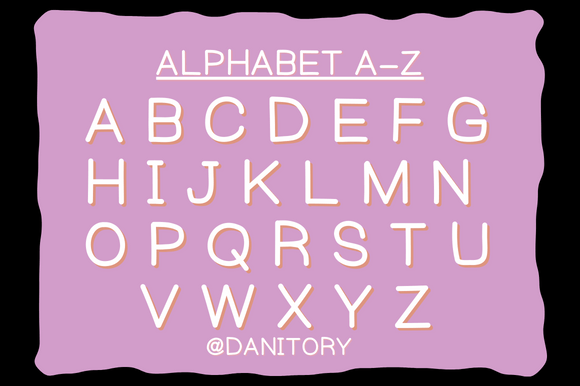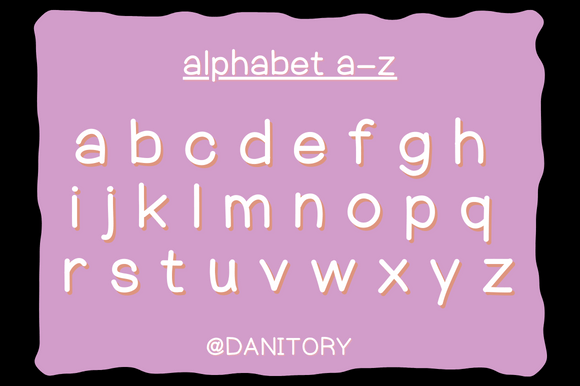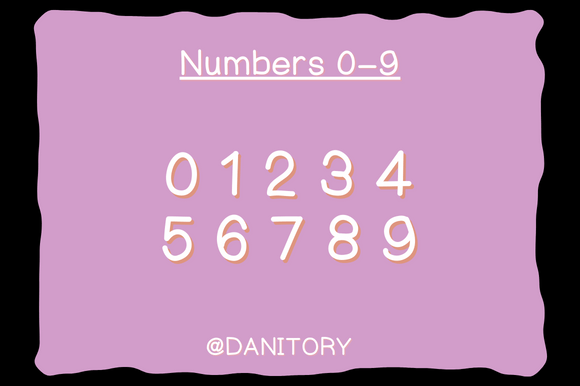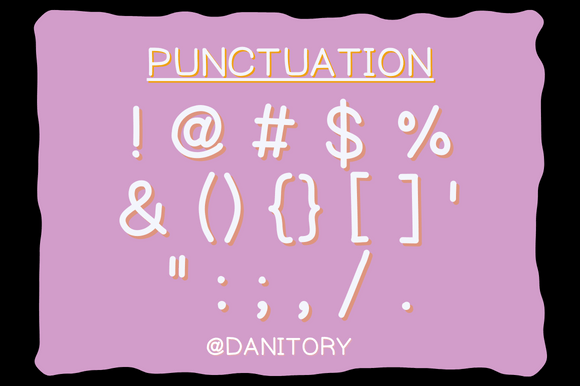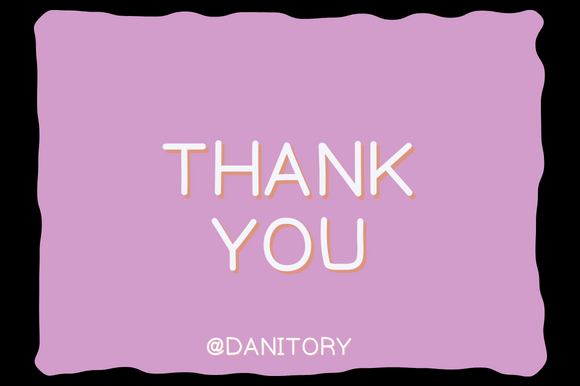
Introducing Giftfy Font: The Cute and Friendly Handwritten Font for Your Designs
Are you a designer or crafter looking for a font that can add a touch of warmth and personality to your projects? Look no further than Giftfy Font! This adorable handwritten font is designed to bring a smile to your audience’s faces, making it perfect for a wide range of designs, from invitations and greeting cards to branding and packaging.
The Characteristics of Giftfy Font
Giftfy Font is a beautifully crafted handwritten font that boasts well-balanced characters, making it a versatile choice for various design applications. Its cute and friendly appearance is sure to capture the hearts of your audience, setting your designs apart from the rest.
One of the standout features of Giftfy Font is its ability to match a wide pool of designs. Whether you’re creating a playful and whimsical design or a more elegant and sophisticated one, Giftfy Font adapts seamlessly, making it an excellent addition to your font collection.
Why Designers and Crafters Love Giftfy Font
So, what makes Giftfy Font a favorite among designers and crafters? Here are just a few reasons:
- Cute and Friendly Appearance: Giftfy Font has a unique and charming appearance that is sure to delight your audience.
- Versatility: This font is suitable for a wide range of designs, from digital projects to print materials.
- Easy to Read: Giftfy Font is clear and legible, making it perfect for body text or headlines.
- Unique Character Set: Giftfy Font comes with a range of characters, including uppercase and lowercase letters, numbers, and punctuation marks.
Using Giftfy Font in Your Designs
Giftfy Font is an excellent choice for a wide range of projects, including:
- Invitations and Greeting Cards: Add a personal touch to your invitations and greeting cards with Giftfy Font.
- Branding and Packaging: Use Giftfy Font to create a unique and memorable brand identity.
- Digital Projects: Giftfy Font is perfect for digital projects, such as social media graphics, blog posts, and email newsletters.
In conclusion, Giftfy Font is a beautiful and versatile handwritten font that is perfect for designers and crafters looking to add a touch of warmth and personality to their projects. With its cute and friendly appearance, well-balanced characters, and ease of use, Giftfy Font is sure to become a favorite in your font collection.